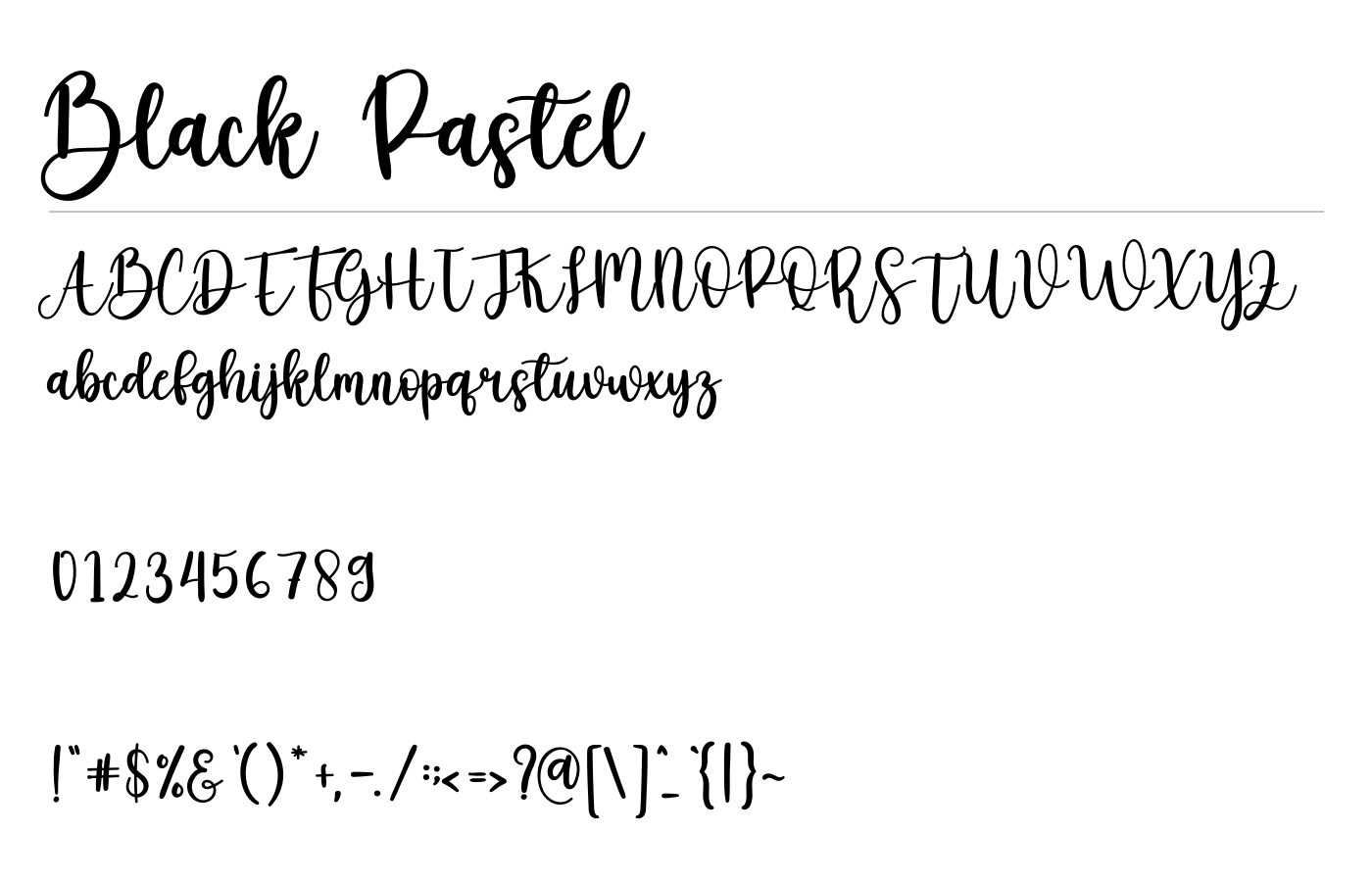
Black Pastel is a playful and elegant script font with fluid, hand-drawn strokes that combine thick and thin contrasts for a lively, personable feel. Its smooth curves and whimsical letterforms make it ideal for branding, invitations, and creative projects that need a touch of charm and sophistication. This font works best in headlines and decorative uses where a casual yet refined style is desired.
Black Pastel Font
About Black Pastel Font